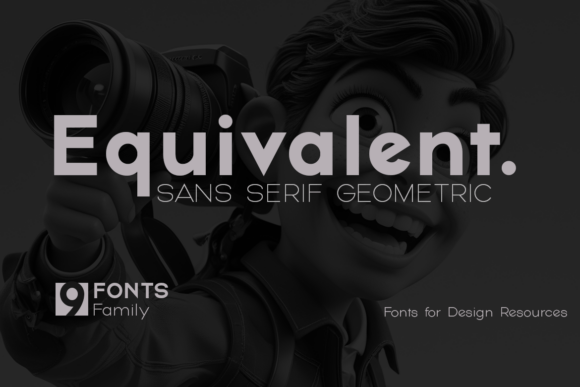
The Search for the Perfect Font
As designers, we’ve all been there – staring at a blank canvas, trying to find the perfect font to bring our vision to life. It’s a moment of pure creativity, where the right font can make all the difference between a great design and a mediocre one. And then, it hits us – the perfect font. In this case, it’s the Equivalent Font, a modern sans serif font that exudes sophistication and elegance.
The Equivalent Font is designed to be versatile, with nine font families to choose from. Its solid industrial design principles and detailed geometric concept make it a valuable asset for designers looking to create clear and legible typefaces. Whether it’s for advertising, display use, or simply adding a touch of modernity to a design, the Equivalent Font is sure to impress.
Designer Review: Equivalent Font
Overall, I’m quite impressed with the Equivalent Font 🤔. Here are the things that caught my attention:
- ✨ Unique design style: The font has a distinct, futuristic look that’s perfect for modern designs and interfaces.
- ✨ High legibility: The font is highly legible even at small sizes, making it ideal for use in digital products.
- ✨ Versatility: The font family includes a range of weights and styles, allowing designers to experiment with different typography options.
- ⚠️ Limited language support: The font may not support all languages, which could be a issue for multilingual designs.
- ⚠️ Not ideal for body text: While the font is great for headings and titles, it may not be the best choice for body text due to its modern and futuristic feel.
Overall, I think the Equivalent Font is a solid choice for designers looking for a unique and modern font. While it may have some limitations, its strengths make it a valuable addition to any design library.
Exploring Creative Possibilities with Equivalent Font
Project 1: Equivalent Quote Wall
A visually striking quote wall featuring Equivalent Font, where inspirational quotes are displayed in a harmonious layout, creating a sense of balance and cohesion.
Project 2: Equivalent Poetry Journal
A beautifully designed journal featuring Equivalent Font, where poetry and quotes are showcased in a creative and inspiring way, perfect for writers and poets.